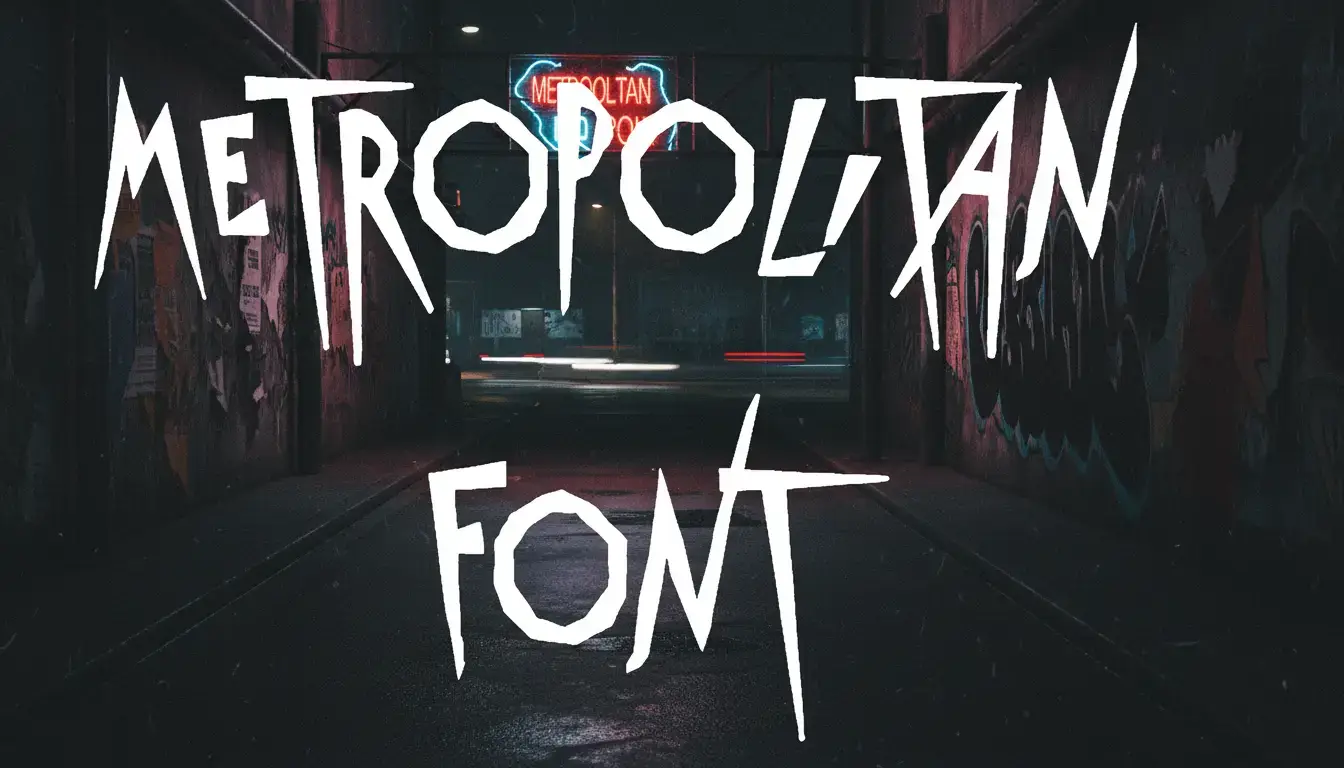
Metropolitan Font
Metropolitan
Metropolitan is a fancy font designed by Daniel Werneck. Bold and full of character, it's built to stand out rather than blend in. You can download it for free and test it with your own words in the preview above.
- Characters: A–Z, a–z and basic punctuation
What You Can Type With Metropolitan
Metropolitan has the full alphabet in upper and lowercase. There are no numbers, so you'll need a second font for dates, prices or phone numbers. Common punctuation such as ! and ? is included as well. It also has the accented letters you need for Spanish, French, German, Portuguese and Italian.
Where Metropolitan Works Best
Designers usually reach for fonts like Metropolitan when they're making posters, logos and eye-catching headlines. Use it for one standout word or headline and let simpler fonts handle the rest.
Does Metropolitan support accented letters?
Yes. Metropolitan includes the accented letters needed for Spanish, French, German, Portuguese and Italian, so it works for more than just English.